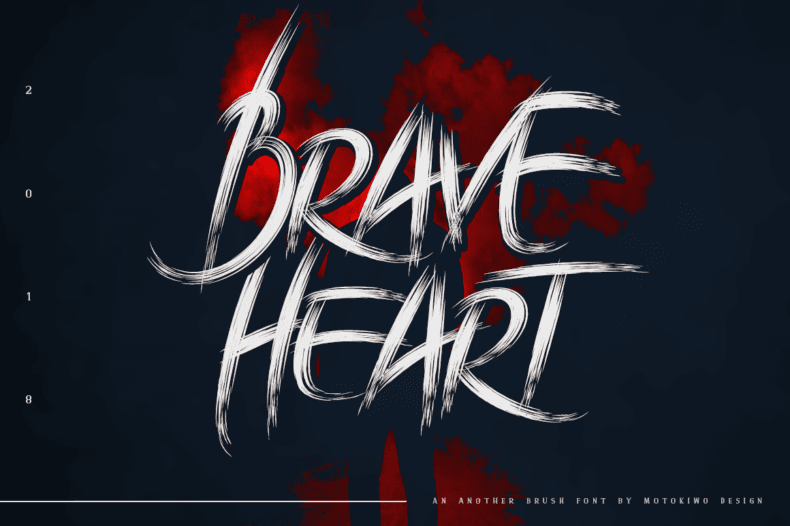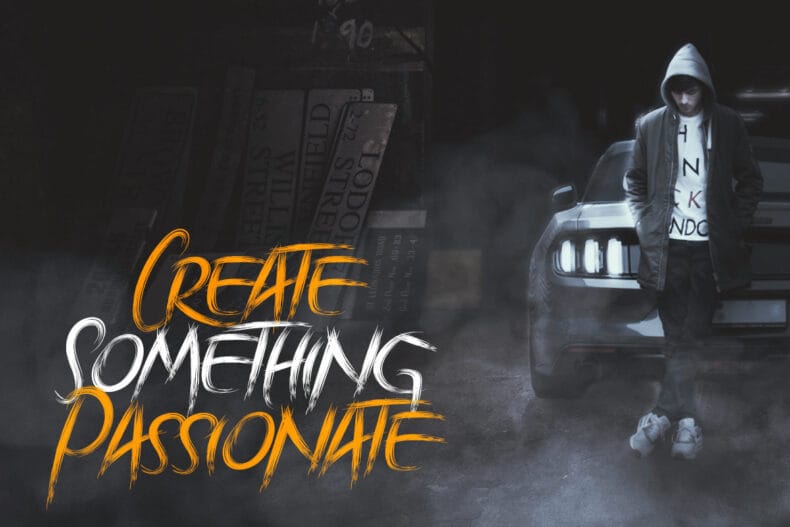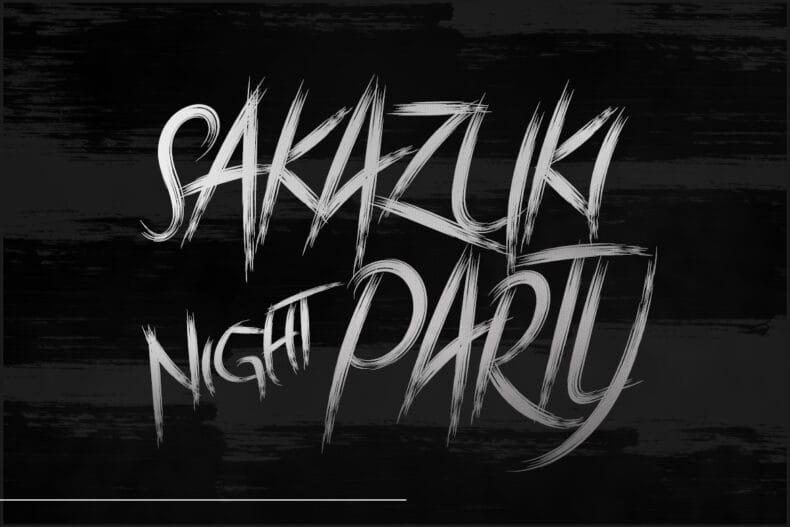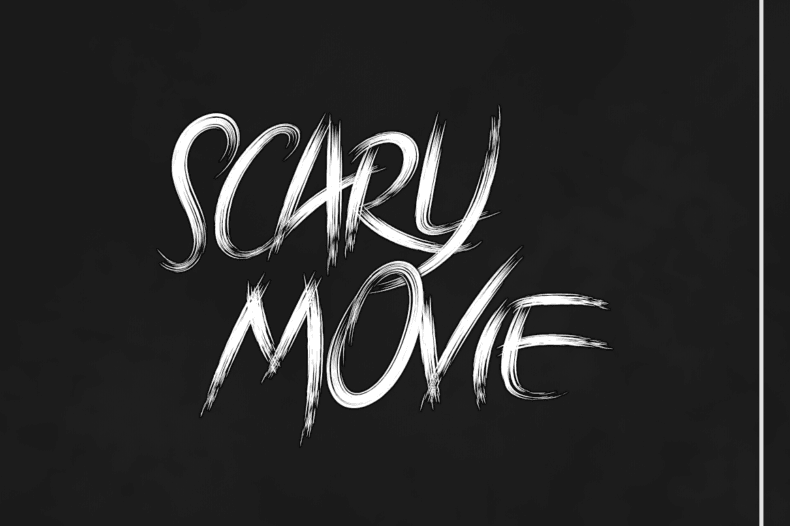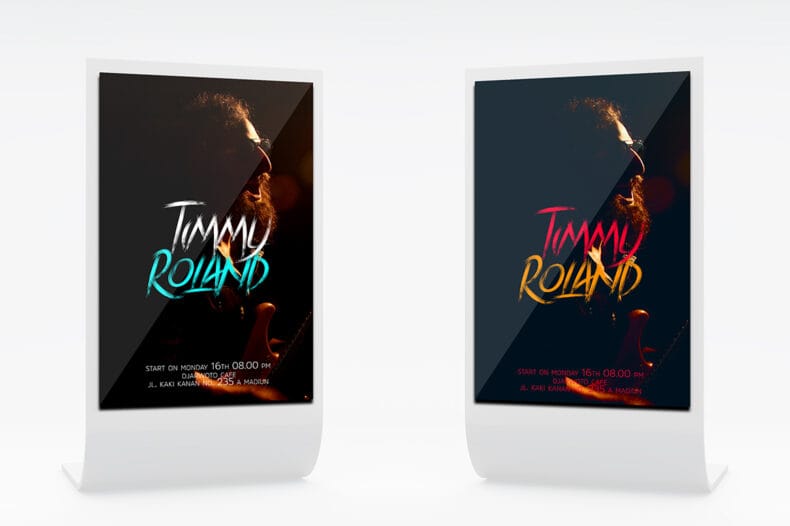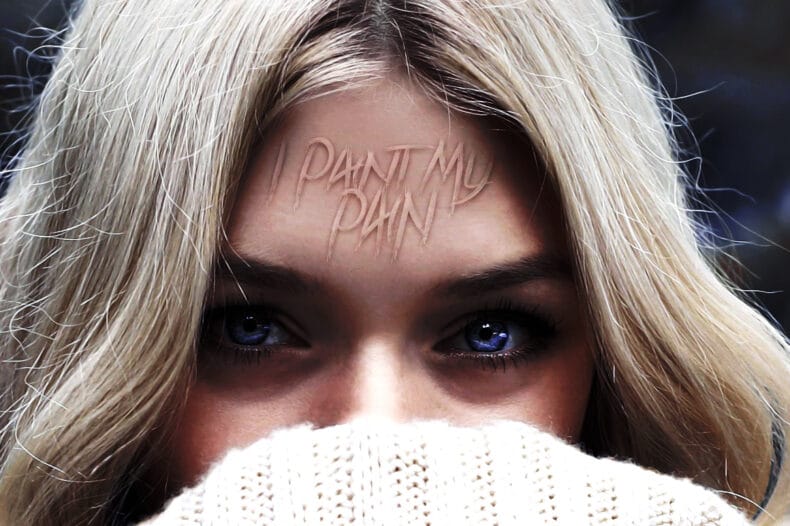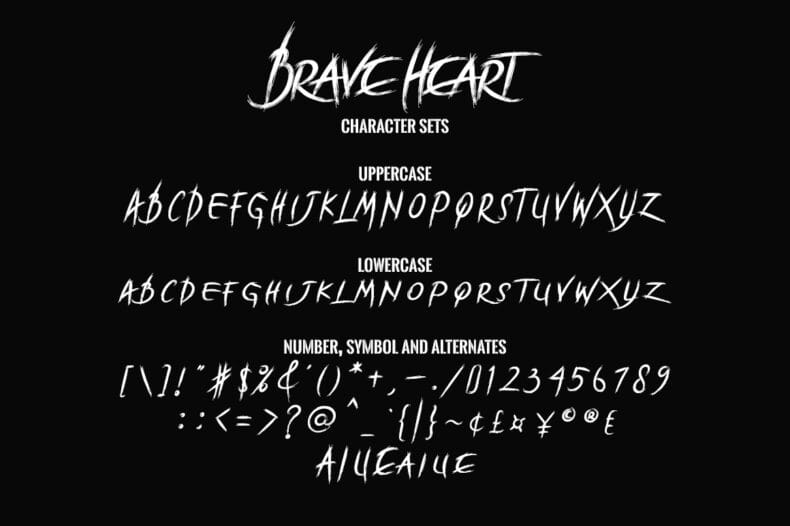
Brave Heart, Paintbrush Typeface
Brave Heart is an uppercase paintbrush font that looks cool in urban and edgy designs. This font is textured and vibrant, making it ideal for a ton of different project types.